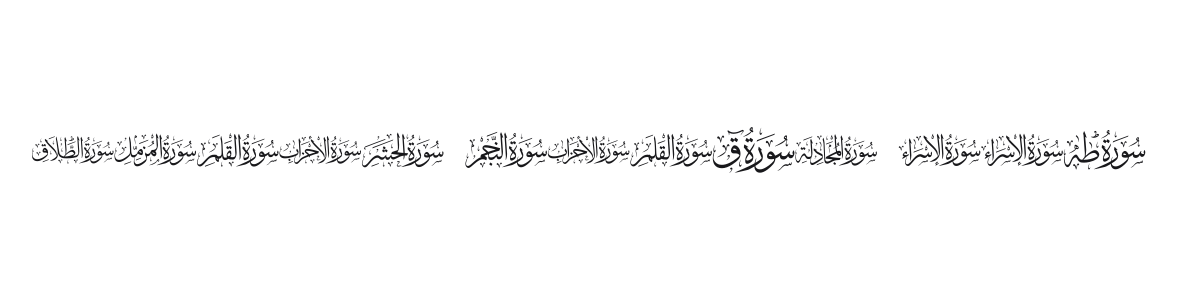
Quran Karim 114
Quran Karim 114 is an Arabic calligraphic font created specifically for rendering the names of the 114 surahs of the Quran. The design draws from classical Islamic calligraphy with flowing connected strokes and careful diacritical placement. It carries the formal, reverential quality appropriate for sacred text presentation.